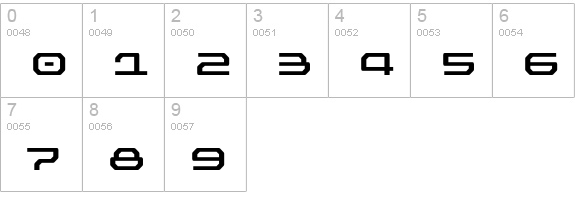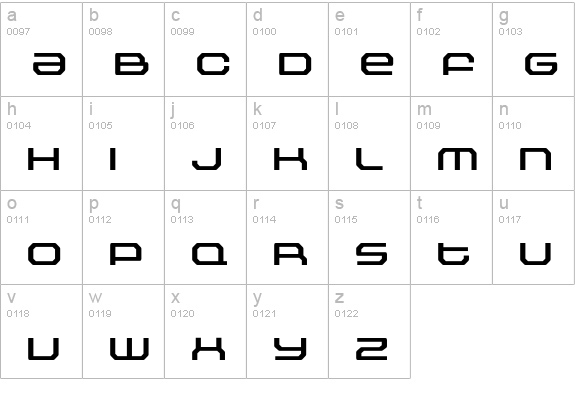
Outlander-Medium Font Details
Outlander-Medium is a balanced, medium-weight variant in the Outlander typeface family \xE2\x80\x94 well suited to sub-headlines, navigation, and balanced editorial work.
Outlander-Medium is a stylish and versatile font that combines elegance with a touch of modernity. With its clean lines and balanced proportions, this font is perfect for a wide range of design projects, from branding to editorial work. The medium weight of Outlander-Medium strikes the perfect balance between boldness and readability, making it a great choice for both headlines and body text. What makes Outlander-Medium even more appealing is the fact that it is available for free download at FontsMarket.com. This means you can easily access this high-quality font and use it in your projects without any cost. Whether you're a graphic designer, a blogger, or simply someone looking to add a touch of sophistication to your creations, Outlander-Medium is sure to impress. Download it today and elevate your design work with this stunning typeface.